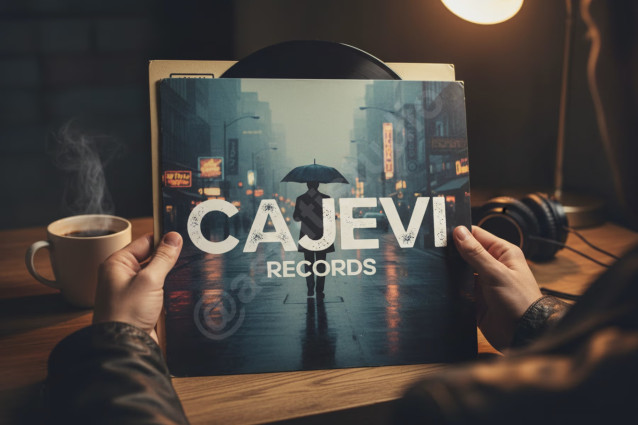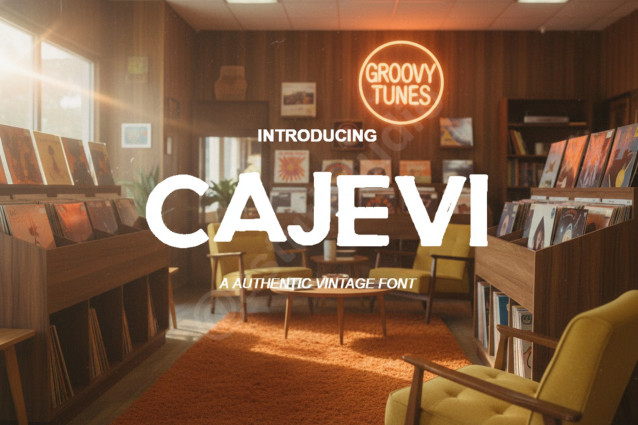
Cajevi – Premium Modern Serif Typeface Font
Cajevi is an exquisite modern serif typeface designed for high-impact visual communication. Melding classic sophistication with contemporary clean lines, Cajevi embodies timeless elegance and authority. It is the definitive choice for designers seeking to elevate projects from beautiful to unforgettable, making it perfect for luxury branding, editorial layouts, and sophisticated social media presence.
Key Features:
- Luxurious Versatility: Ideal for high-end luxury branding, sophisticated magazine layouts, and impactful digital advertising.
- Elegant Contrast: Features beautiful, high-contrast strokes that ensure stunning visual appeal and readability at both display and body text sizes.
- Full Professional Set: Includes uppercase, lowercase, numerals, comprehensive punctuation, and extensive multi-lingual support.
Optimized Use Cases
- High-End Branding: Perfect for luxury logos and corporate identities.
- Editorial Design: Ideal for magazine layouts, headlines, and book covers.
- Wedding Stationery: Adds a touch of class to invitations and menus.
- Social Media: Elevate your quotes and promotional graphics with a professional look.
- Packaging: Create standout product labels and retail packaging.